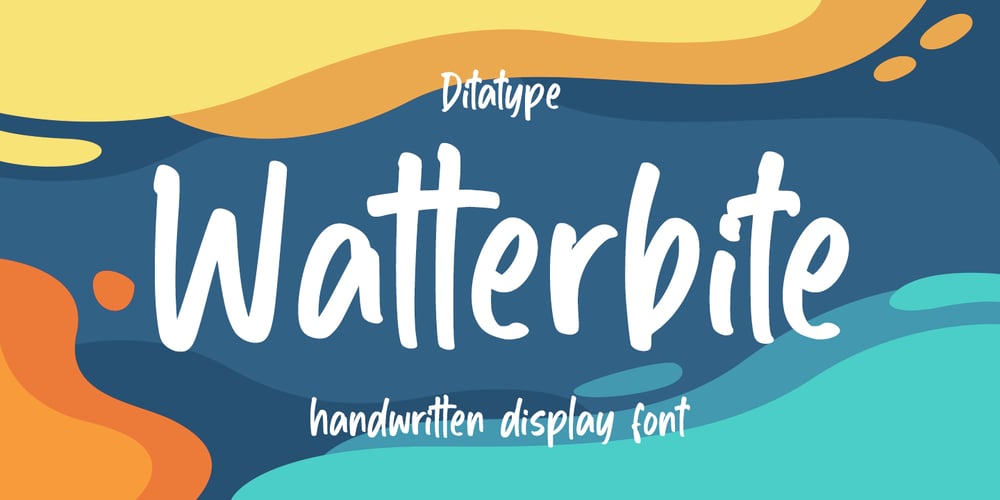
Watterbite
Watterbite font
Watterbite Font Family was designed by Donis Miftahudin and published by Ditatype. Watterbite contains 1 styles and family package options. Watterbite is a classy script font. Made for any professional project branding. It is the best for logos, branding and quotes. Every letter has a unique and beautiful touch.Includes:Watterbite (OTF)Features: Beautiful Ligatures Multilingual Support PUA Encoded Numerals and Punctuation Thank you for downloading premium fonts from Dita Type